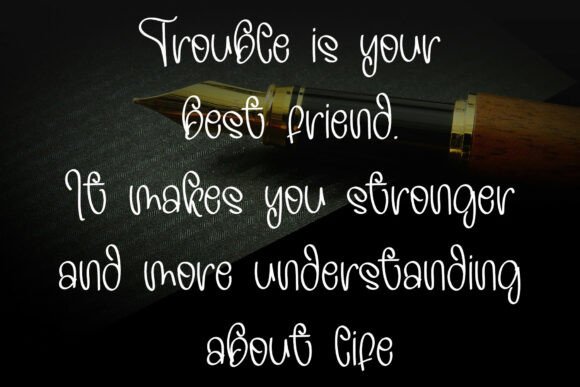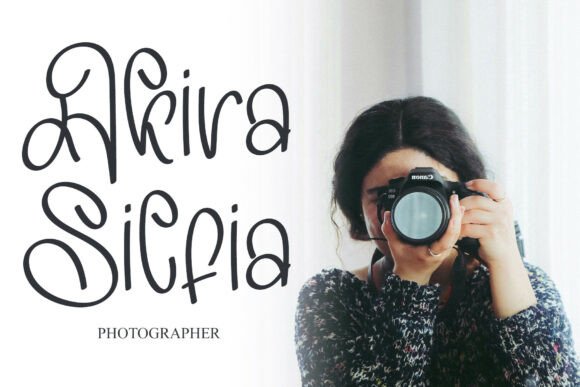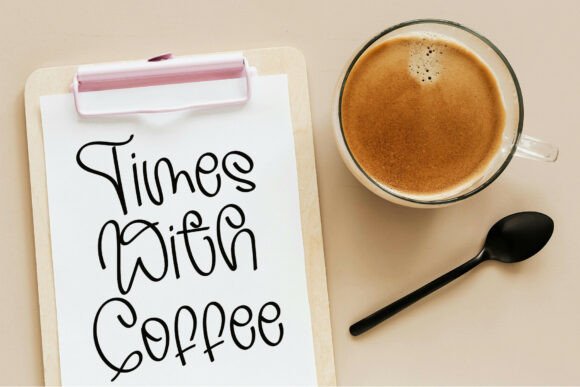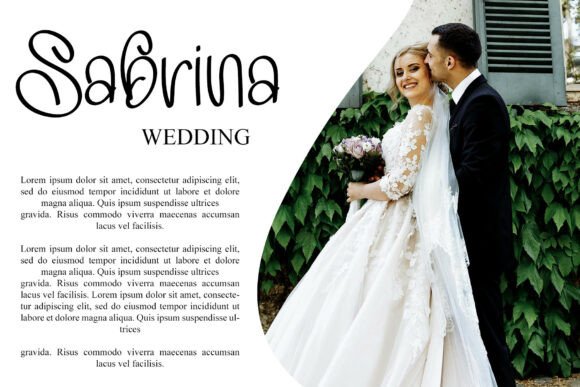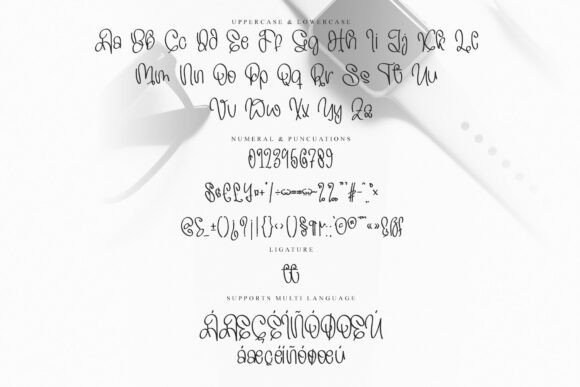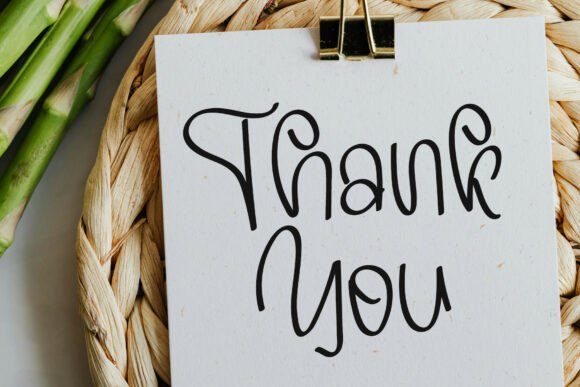
The Power of Handwritten Typography: Discovering the Magic of Bestie Handwritten Font
Have you ever been brainstorming a new design project and suddenly, the perfect idea strikes you? The excitement is palpable as you envision the look and feel of your creation. That’s exactly what happens when you unleash the power of Bestie Handwritten Font. This bold and captivating display font is designed to command attention with its strong, distinctive letterforms, making it the perfect choice for projects that need an eye-catching and memorable typographic style.
As a designer, you know the importance of choosing the right font to convey your message and leave a lasting impression. That’s where Bestie Handwritten Font comes in – a valuable addition to your design arsenal. Its unique blend of creativity and impact makes it perfect for branding, posters, digital designs, and more. Whether you’re working on a high-profile campaign or a personal project, Bestie Handwritten Font adds a touch of bold magic to your visuals.
Bestie Handwritten Font Key Features
- Font Style: Handwritten, Script
- Character Count: 250+ glyphs, including uppercase and lowercase letters, numbers, punctuation, and special characters
- Unique Characteristics: Includes ligatures, swashes, and alternate characters for added flair and creativity
Designer Review: Bestie Handwritten Font
I recently had the chance to work with the Bestie Handwritten Font, and I must say it’s a lovely addition to any design project. ✨ The unique, cursive style gives a personal touch to any text, making it perfect for greeting cards, social media graphics, or even wedding invitations.
The font is quite versatile and can be used for a variety of purposes, from casual to formal designs. The handwritten style is charming and can add a sense of warmth to your projects.
- Unique, cursive style that adds a personal touch
- Perfect for greeting cards, social media graphics, or wedding invitations
- Quite versatile and can be used for casual to formal designs
However, there are a few limitations:
- Not suitable for body text due to its cursive nature
- May be difficult to read in smaller font sizes
- Lack of ligatures and kerning options can make text alignment tricky
Overall, I think the Bestie Handwritten Font is a great addition to any designer’s toolkit. While it has its limitations, its unique style and versatility make it a valuable asset for any project that requires a personal touch.
Tips for Getting the Most Out of Bestie Handwritten Font
To get the most out of Bestie Handwritten Font, use it for titles, headings, and short paragraphs of text. Avoid using it for large blocks of text, as it can be difficult to read. Experiment with different font sizes and colors to create a unique and eye-catching design.
Bestie Handwritten Font is perfect for creating invitations, social media graphics, and blog posts. It’s also great for creating a personal and handwritten-style signature or logo.